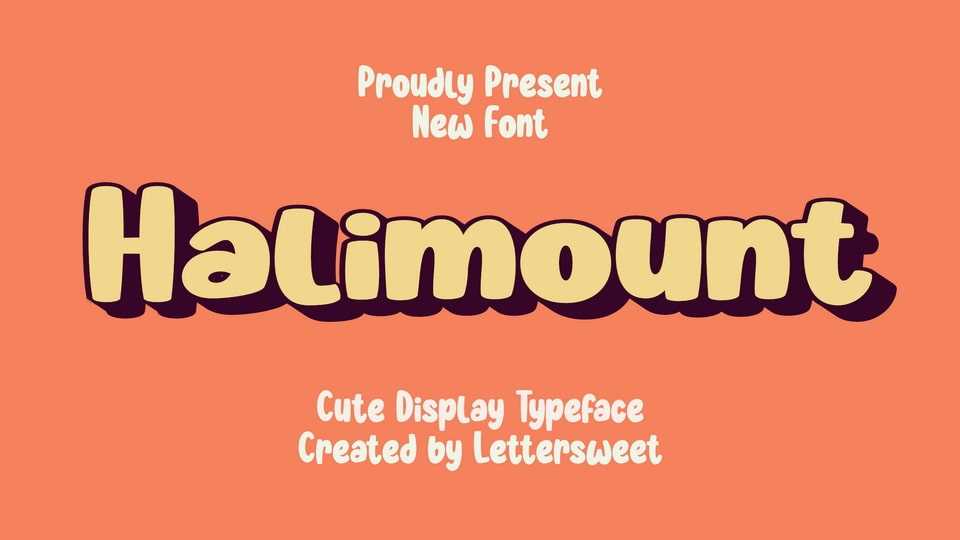
Download Halimount font, a fun and cute bold display typeface, inspired by cute bold typography. Halimount font is perfect for a design that requires a playful and quirky accent.